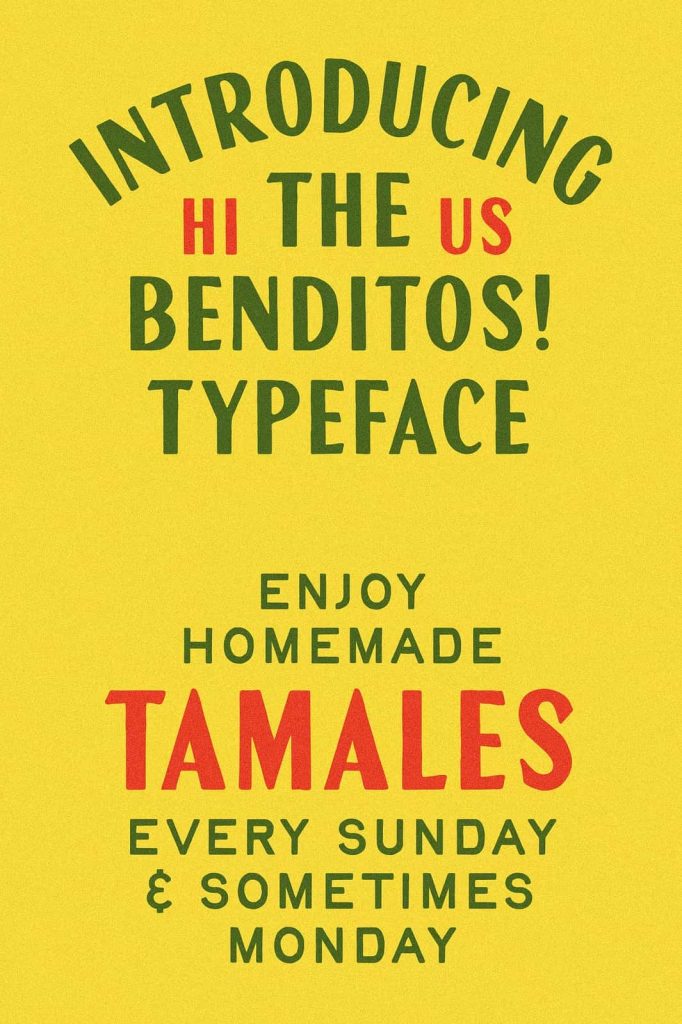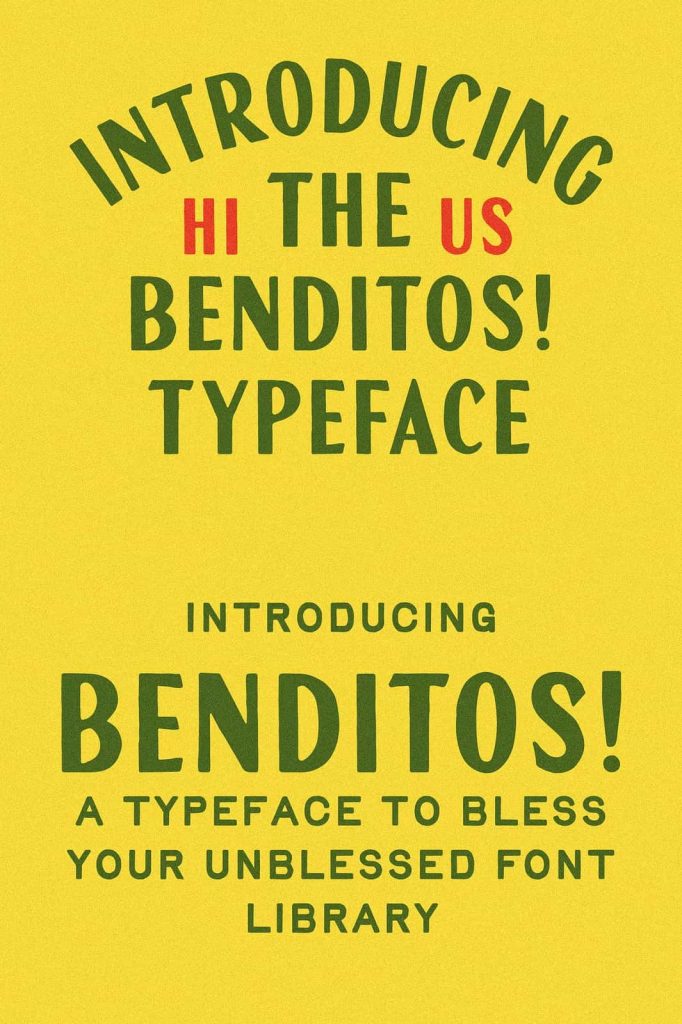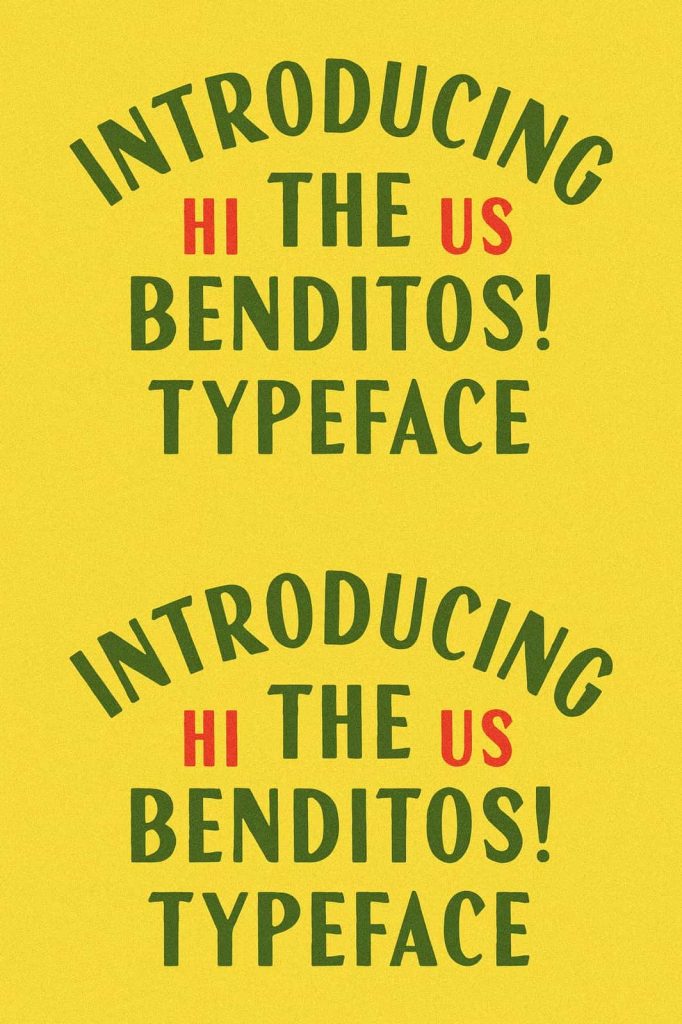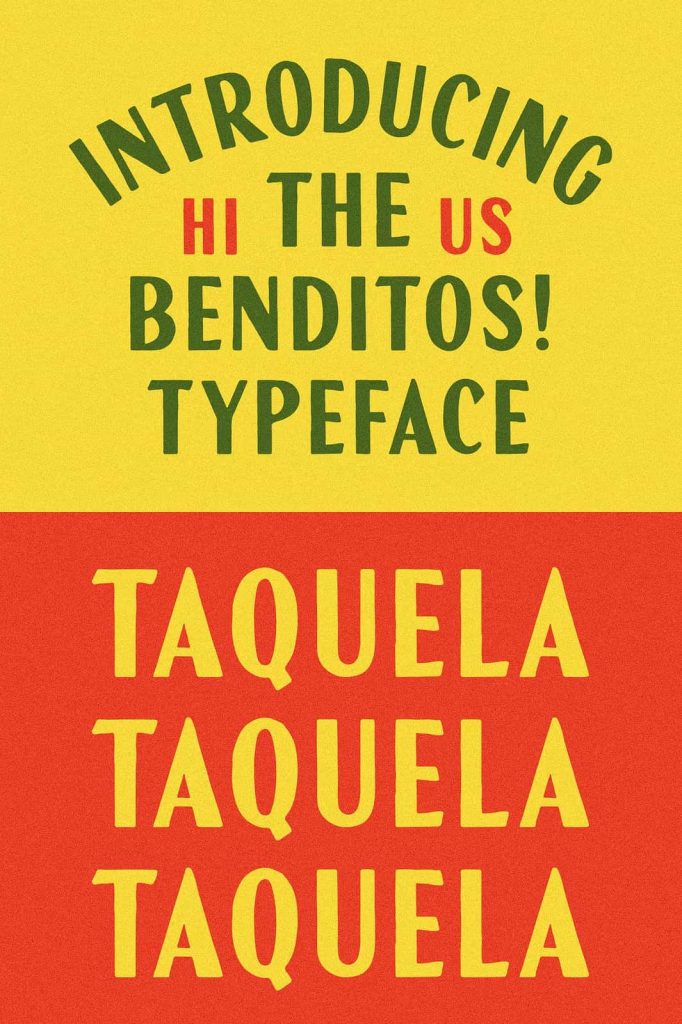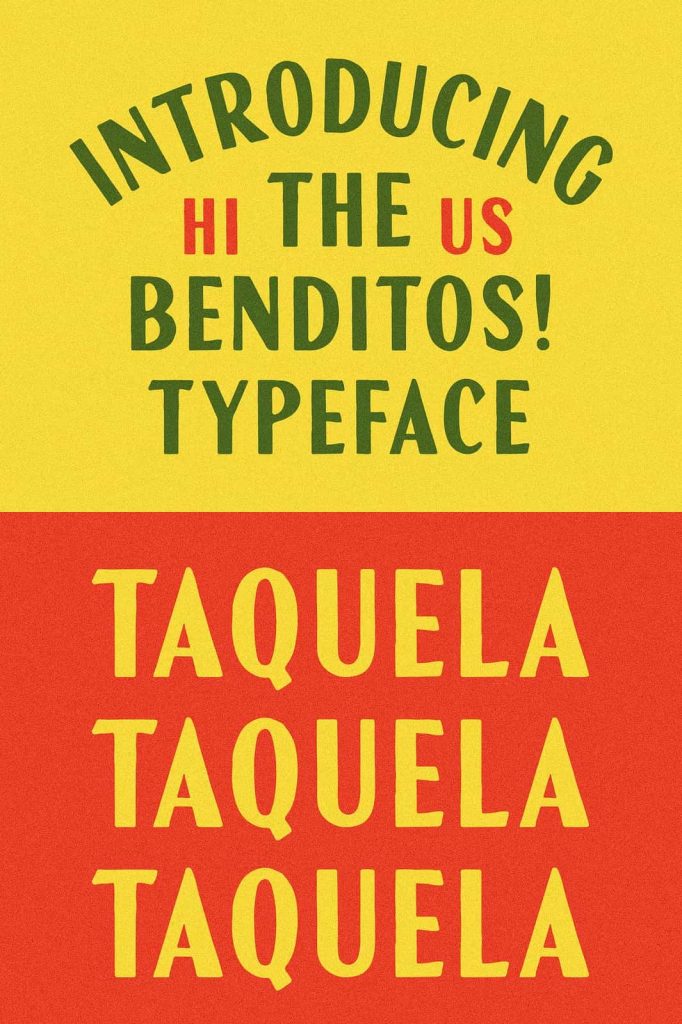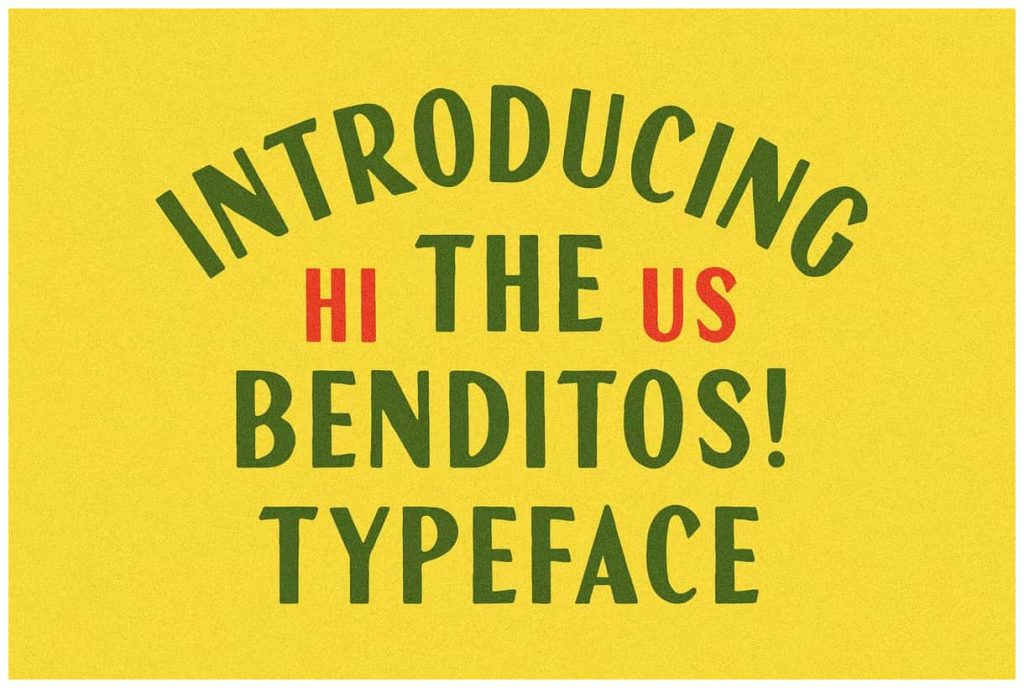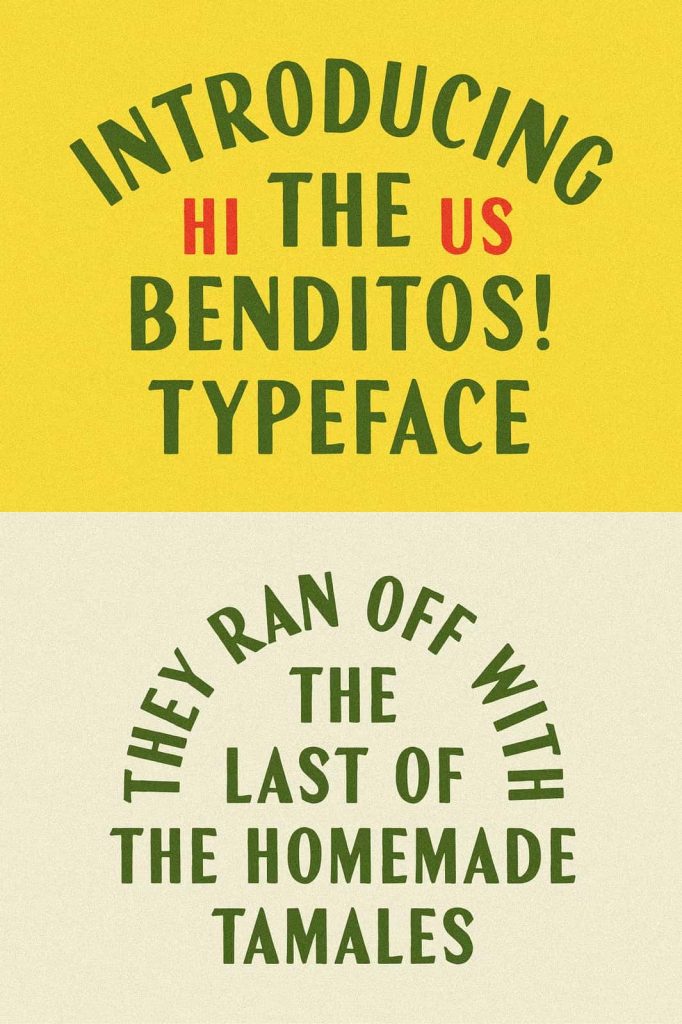
Benditos is one of the few pre-blessed fonts you can legally download. Inspired by vintage hotel matchbooks, it balances old-school charm with a structure that actually holds up today.